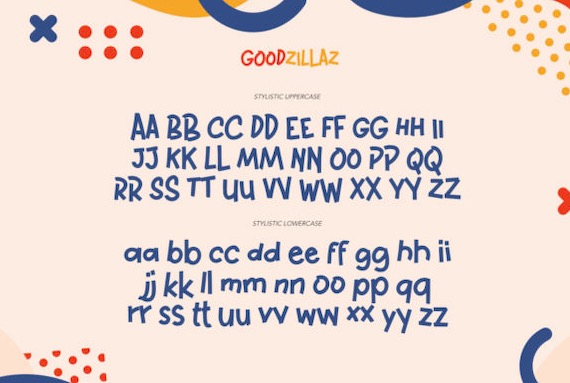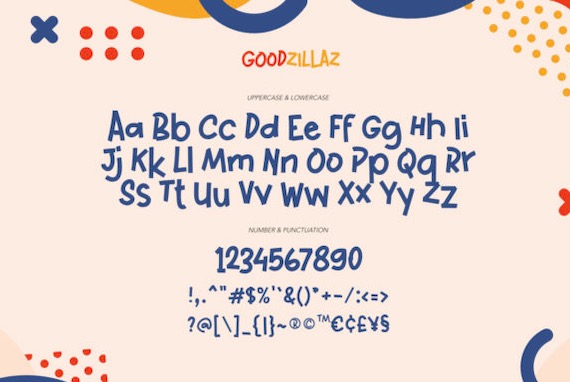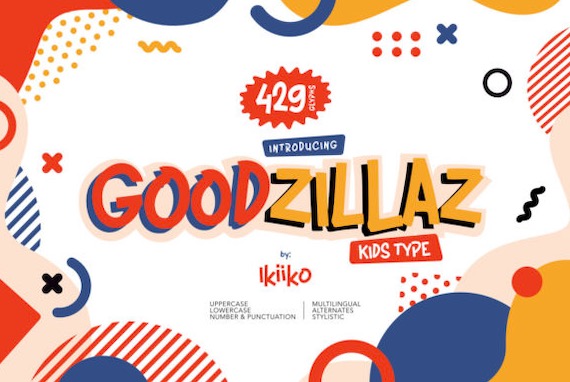
Goodzillaz Font
Goodzillaz font is a playful and cool, paint-brushed display typeface that was created and shared by ikiiko. This display font is PUA encoded which means you can access all glyphs and swashes with ease. Add it confidently to your projects, and you will love the results.